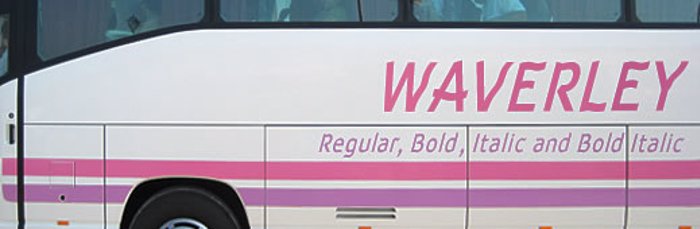
Waverley Font
A breezy family of fonts with a flyaway feel. Drawn in Kefalonia, Greece, it got quite windy in the late afternoon. The family consists of four fonts - in addition to the regular weight and bold, each has a faux italic.